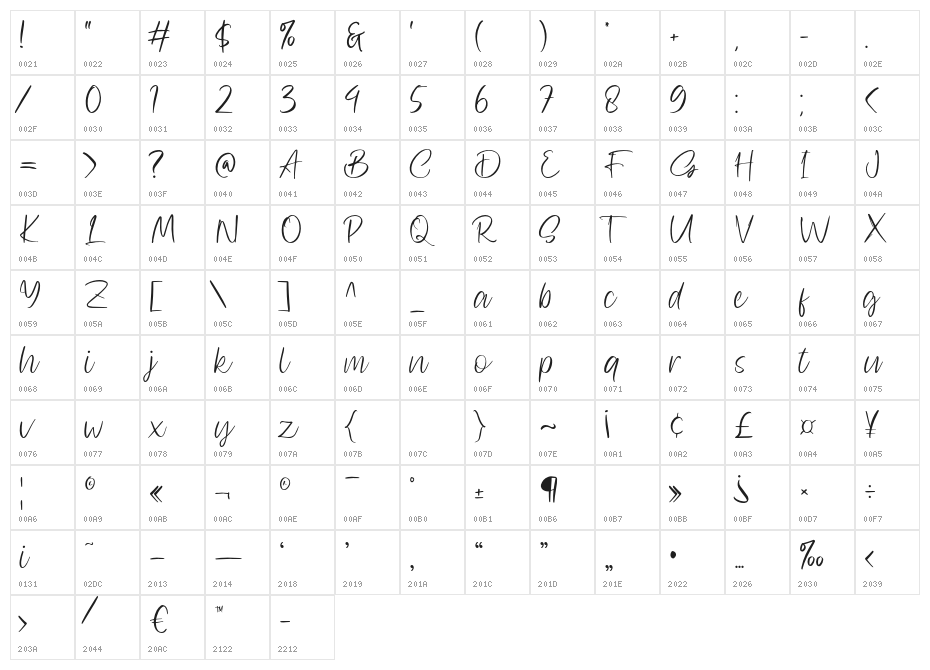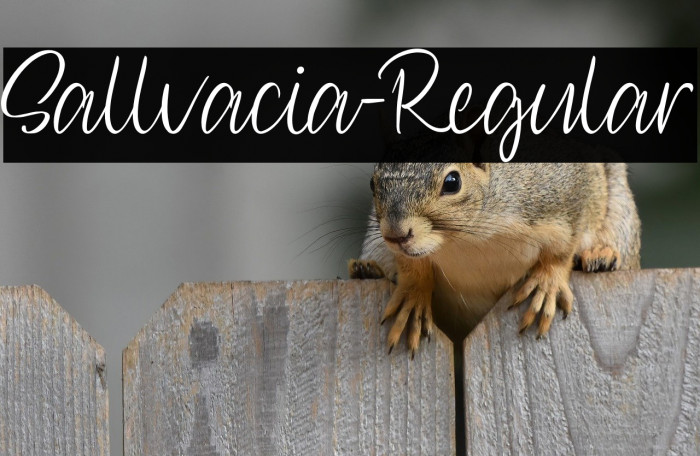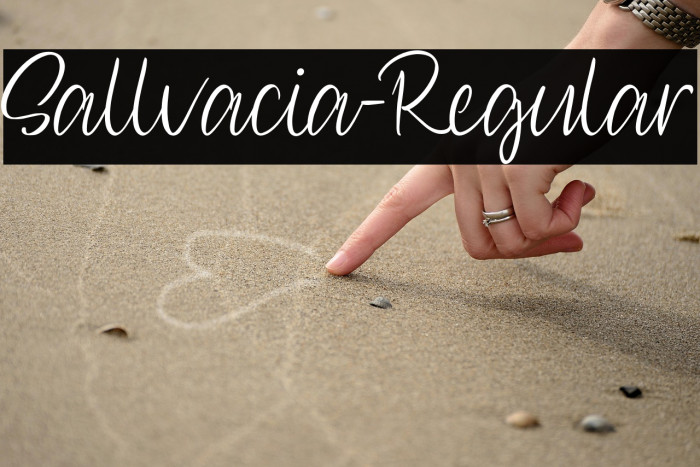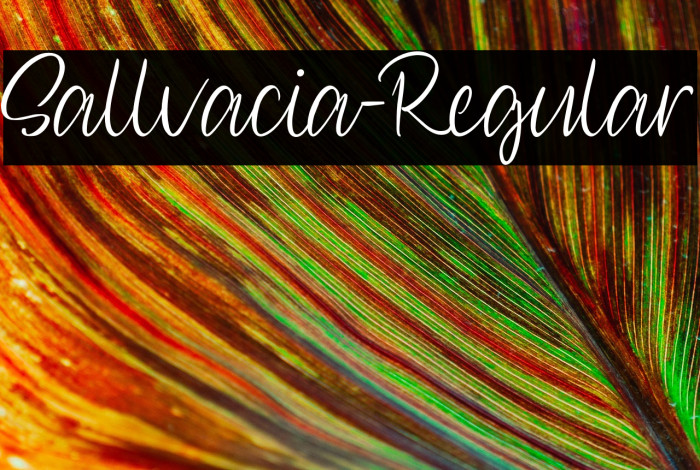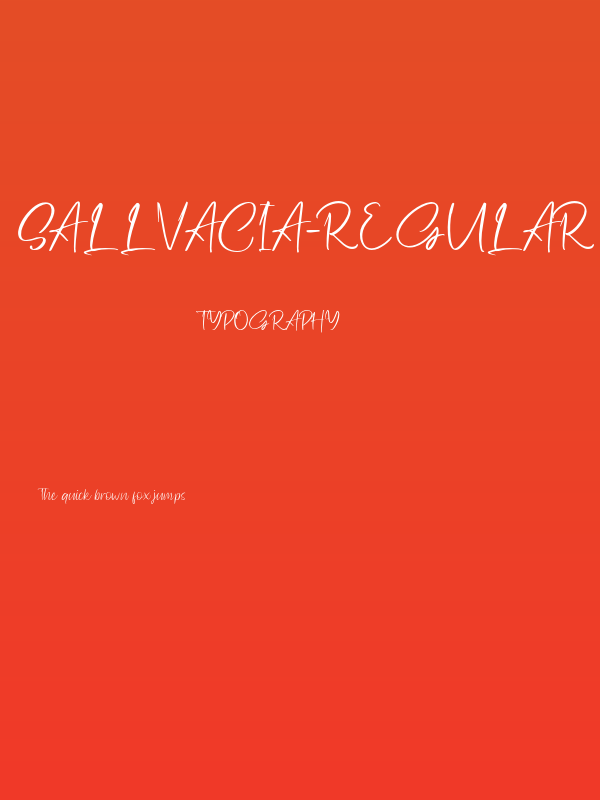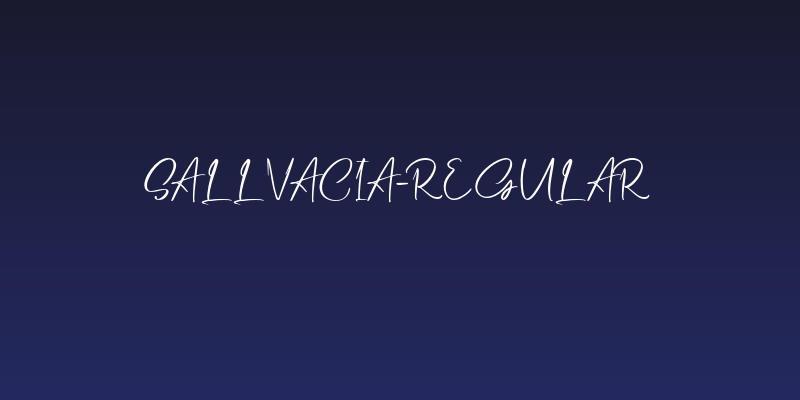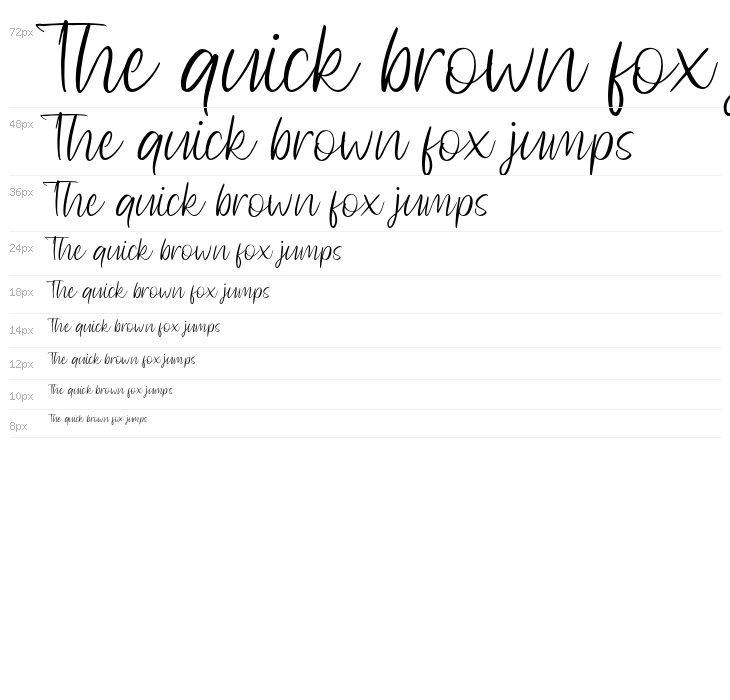
Sallvacia-Regular Font
Sallvacia-Regular Description
This font features a flowing, cursive style with a modern twist. The characters are elegantly crafted with smooth curves and a slight slant, giving it a handwritten appearance. The uppercase letters are bold and prominent, while the lowercase letters maintain a consistent flow, enhancing readability. The numerals and special characters are designed to complement the overall aesthetic, making it versatile for various applications. The font's playful yet sophisticated look makes it suitable for creative projects.
| Use Case | Logos, Invitations, Social Media |
| Proposed Projects | Ideal for wedding invitations, greeting cards, branding, and social media graphics. |